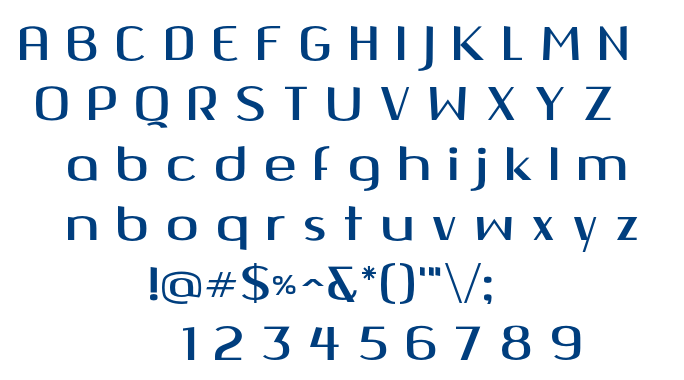
Tiny Small Medium Large Quango font NimaVisual Website Quango.otf Download 4229 downloads Freeware Category: Basic » Sans serif Quango is a modern sans serif with a singular techno approach, wide glyphs and contrasted, angular strokes Character Map specimen sheet